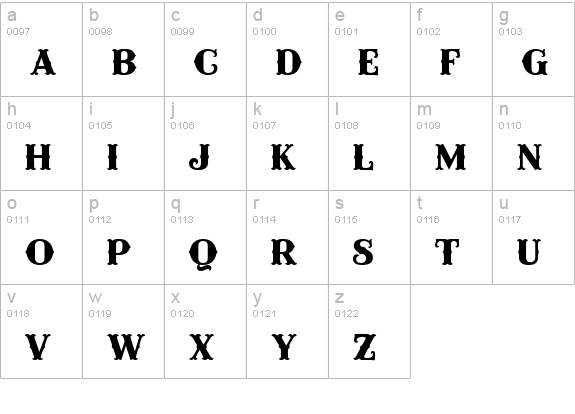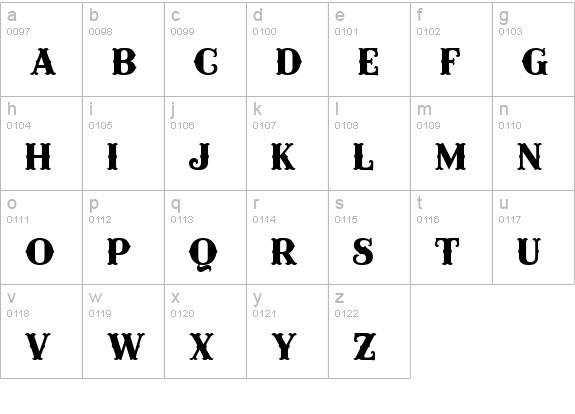
Miss Scarlett Plain font is a versatile and elegant typeface that exudes sophistication and charm. With its clean lines and classic design, this font is perfect for a wide range of projects, from invitations to branding to editorial design. The simple yet stylish letterforms make it easy to read and ideal for both display and body text. Best of all, Miss Scarlett Plain font is completely free to download at FontsMarket.com. Whether you're a designer looking to add a touch of class to your work or someone who simply appreciates beautiful typography, this font is a must-have in your collection. Don't miss out on the opportunity to enhance your projects with this delightful and timeless typeface. Download Miss Scarlett Plain font today and elevate your design game to the next level.